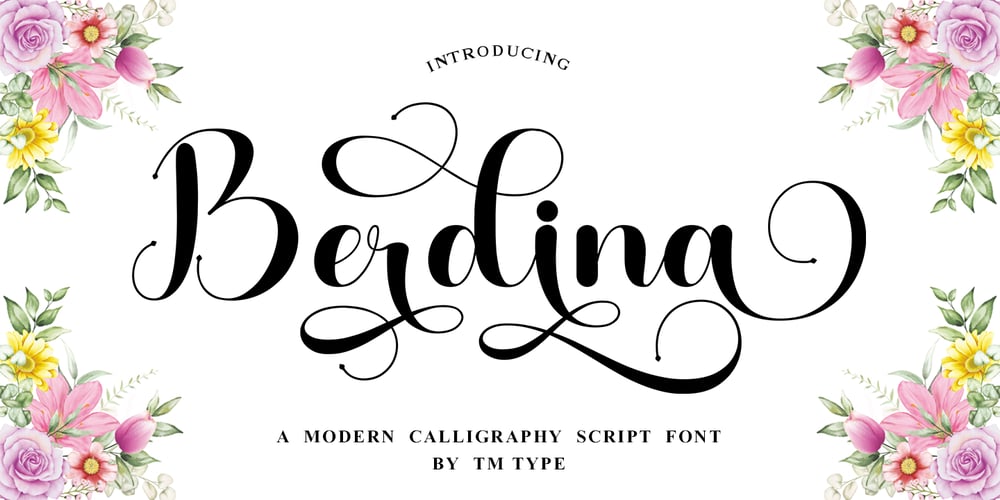
Berdina
Berdina font
Berdina Font Family was designed by Teuku Bustami and published by TM Type. Berdina contains 1 styles and family package options. Berdina feels equally charming and elegant. It looks stunning on wedding invitations, thank you cards, quotes, greeting cards, logos, business cards, and every other design which needs a handwritten touch.